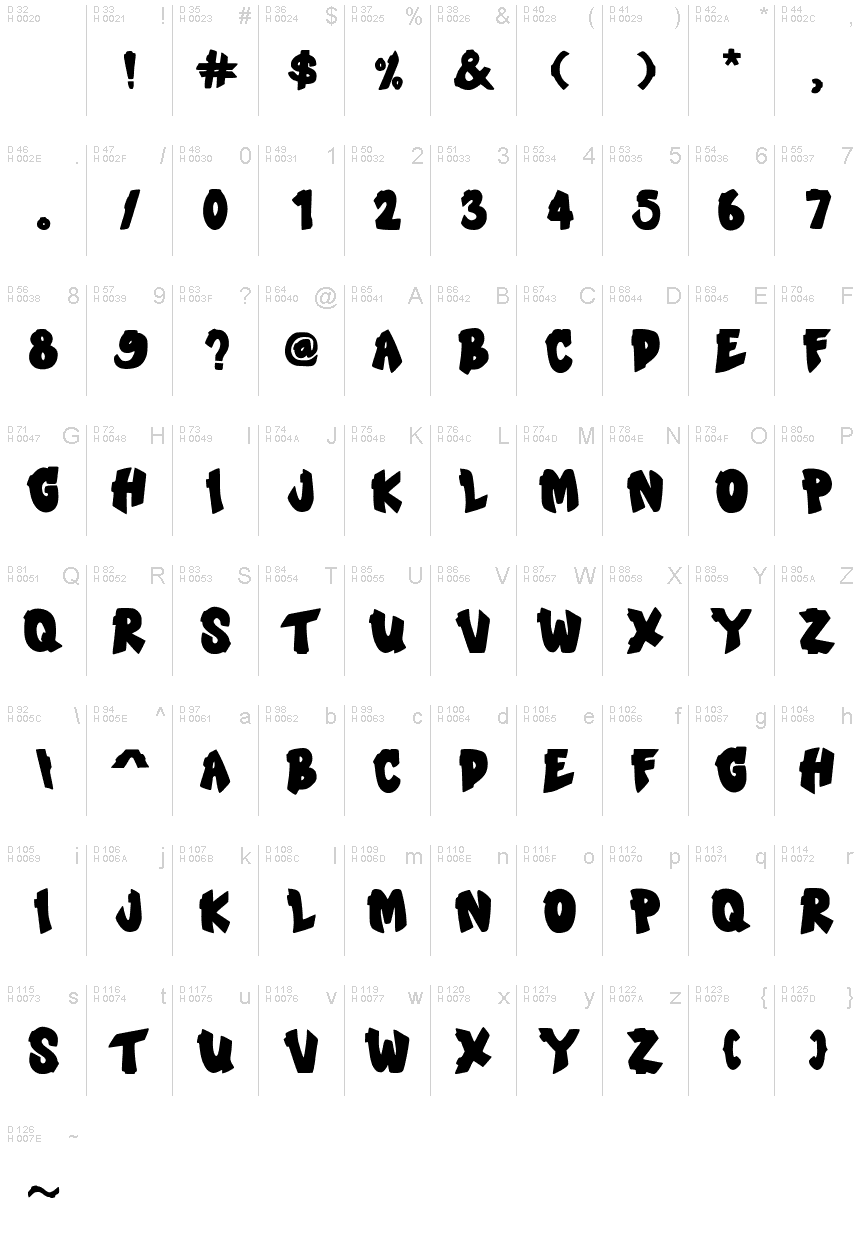
Marzone
Are you looking for a playful and eye-catching font to elevate your creative projects? Look no further than Marzone, designed by the talented Muhammad Yafinuha. This unique display font boasts an extra-bold weight and a charming cartoon style that sets it apart from traditional typefaces.
With its bold and whimsical aesthetic, Marzone is perfect for a wide range of creative endeavors, including children's books, branding materials, packaging design, and social media graphics. Its distinct characteristics make it an ideal choice for adding personality and vibrancy to any project. Whether you're aiming for a fun and lighthearted vibe or seeking to stand out with a bold statement, Marzone offers endless potential for unleashing your creativity.
Embrace the versatility of this font and watch as it brings your designs to life with its captivating charm.